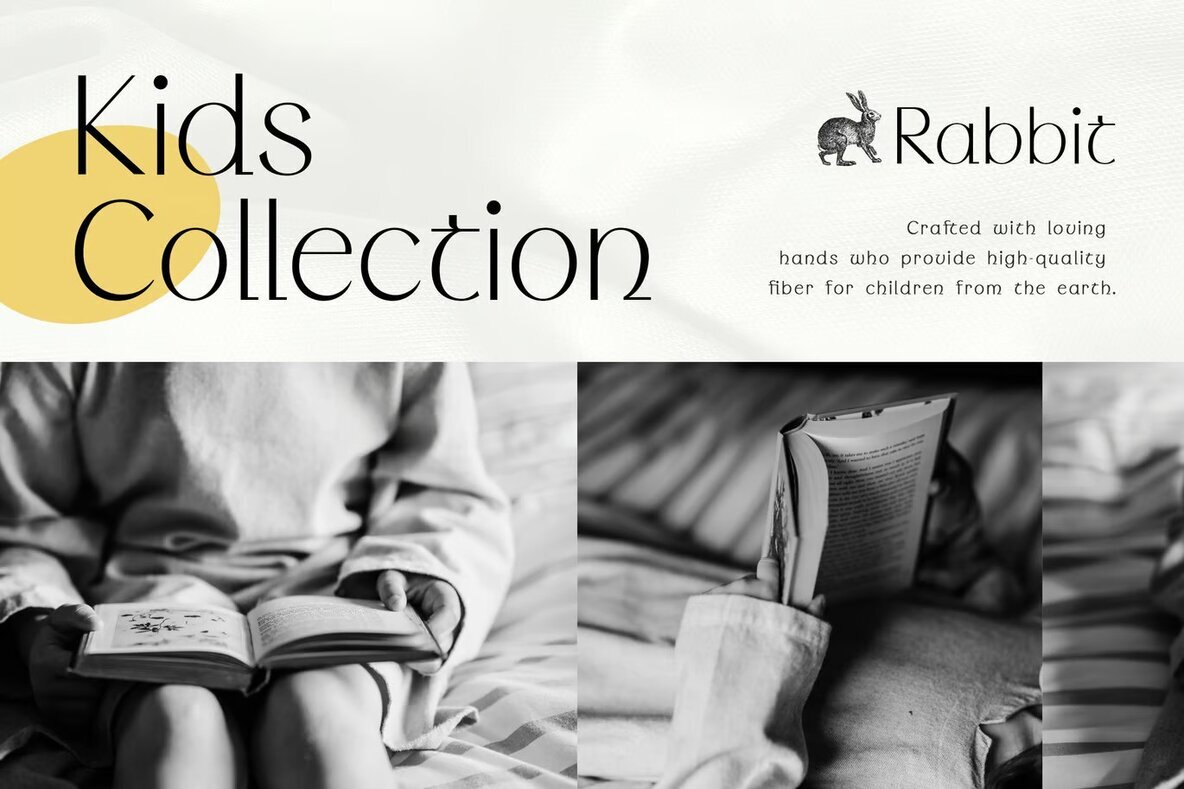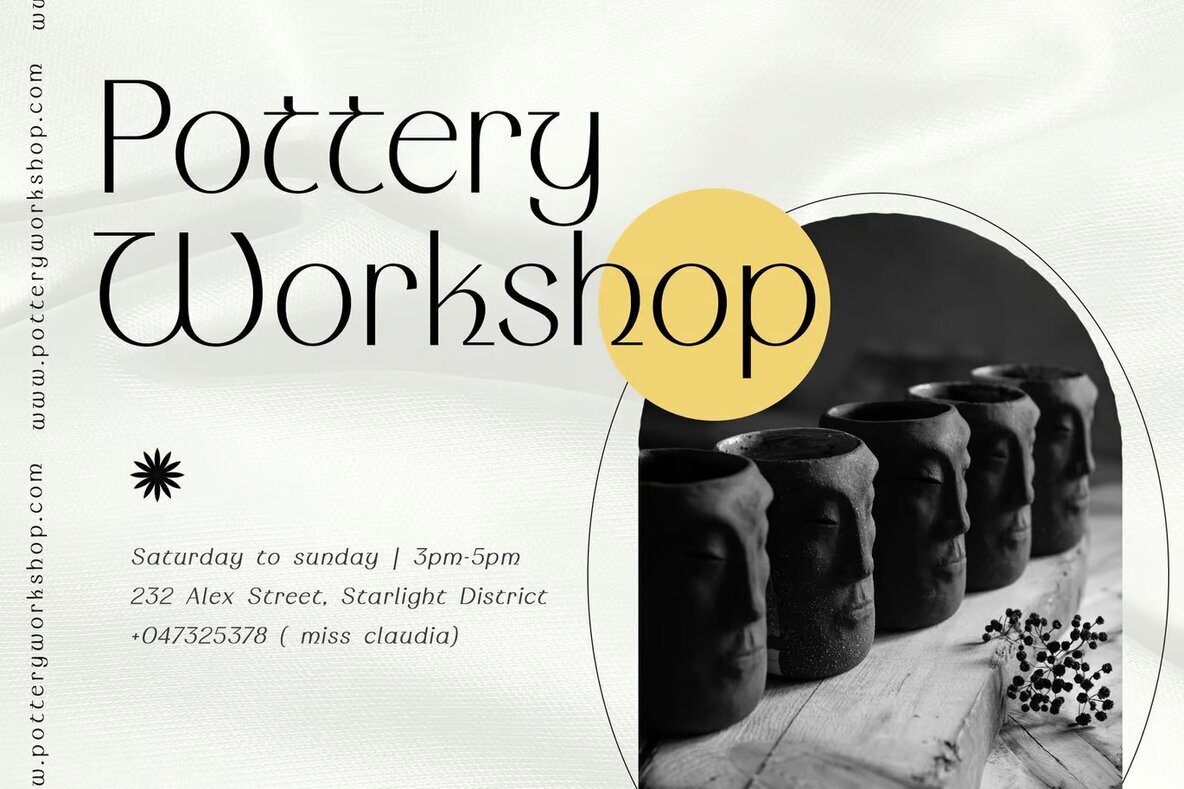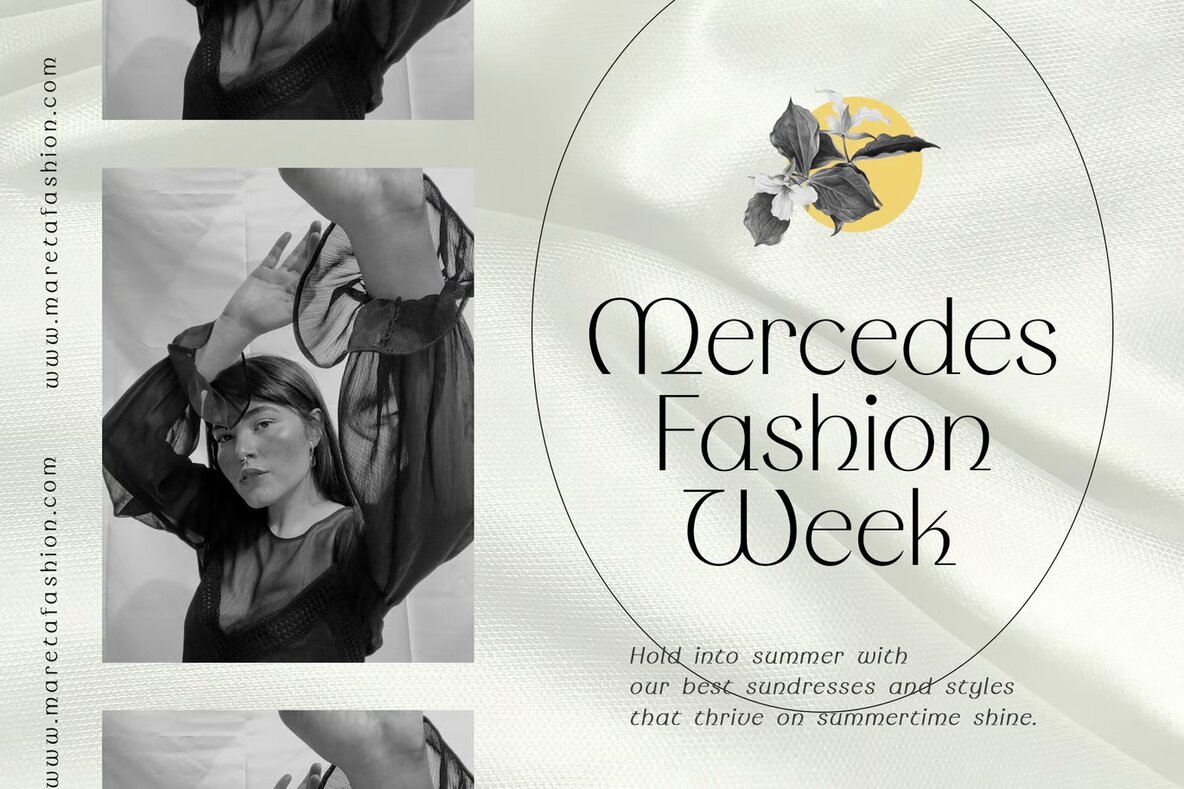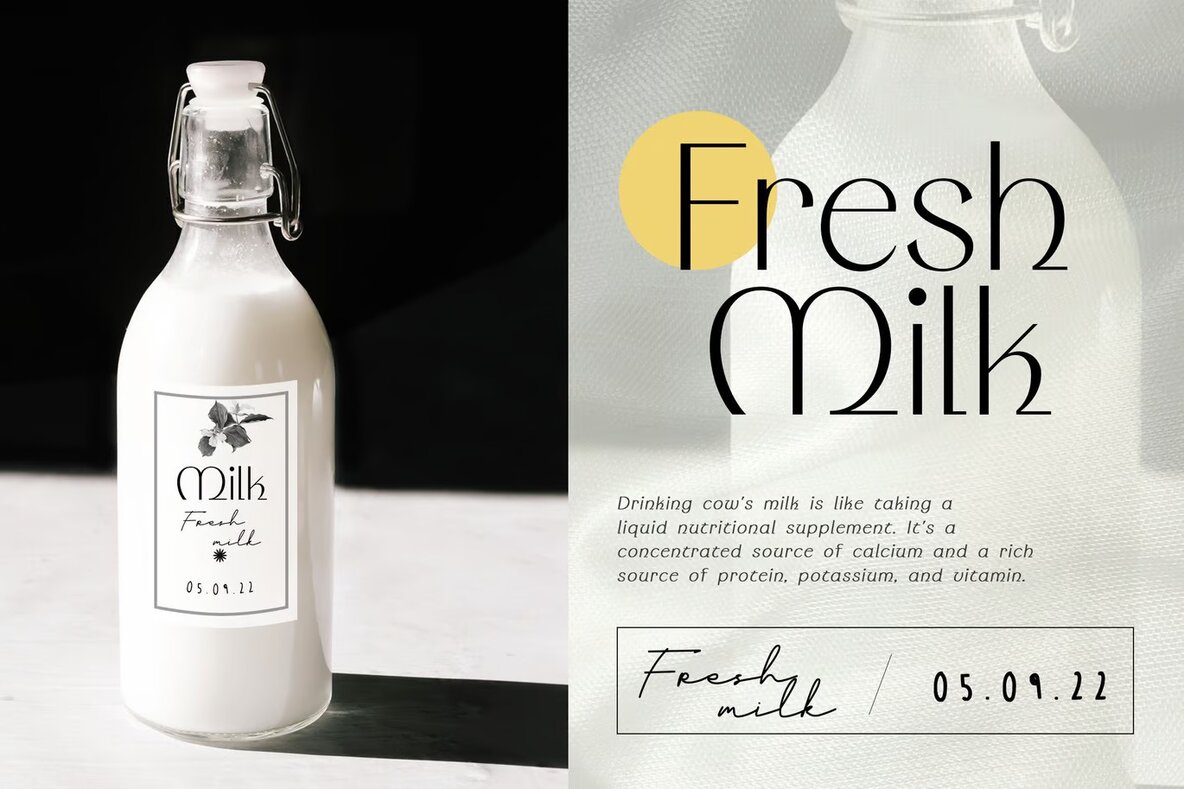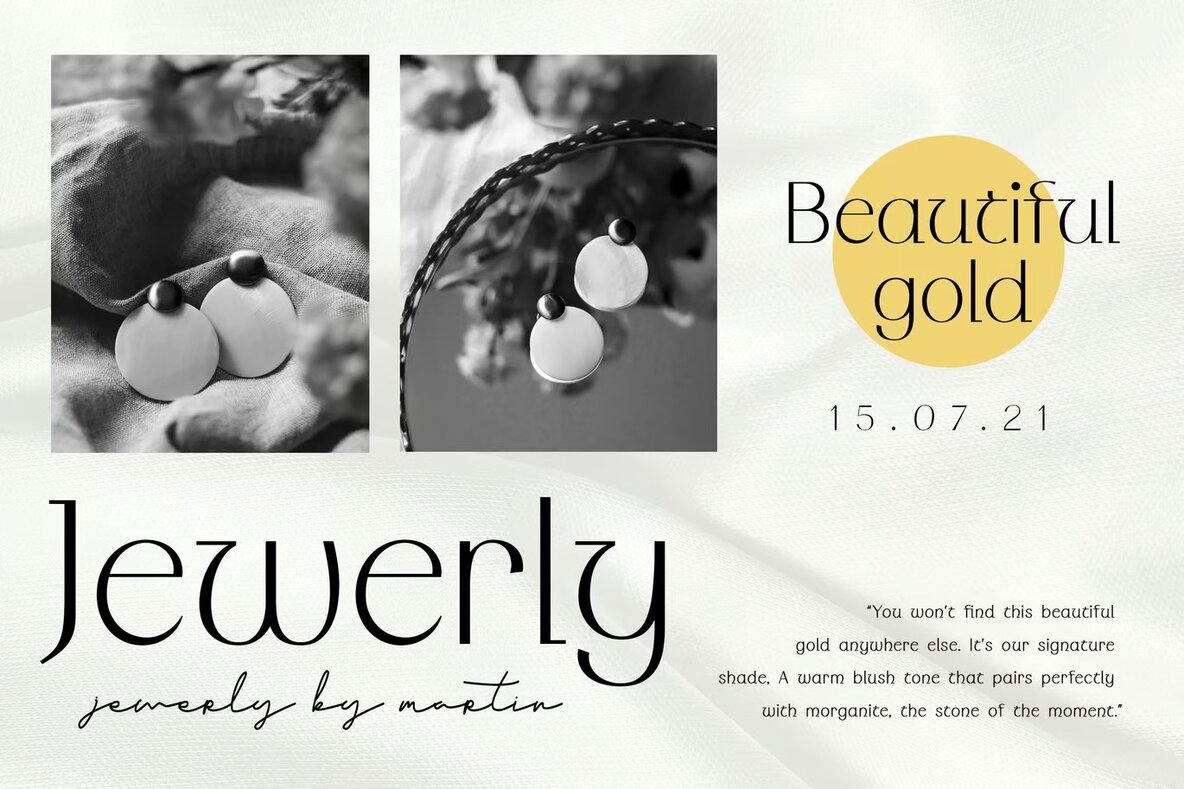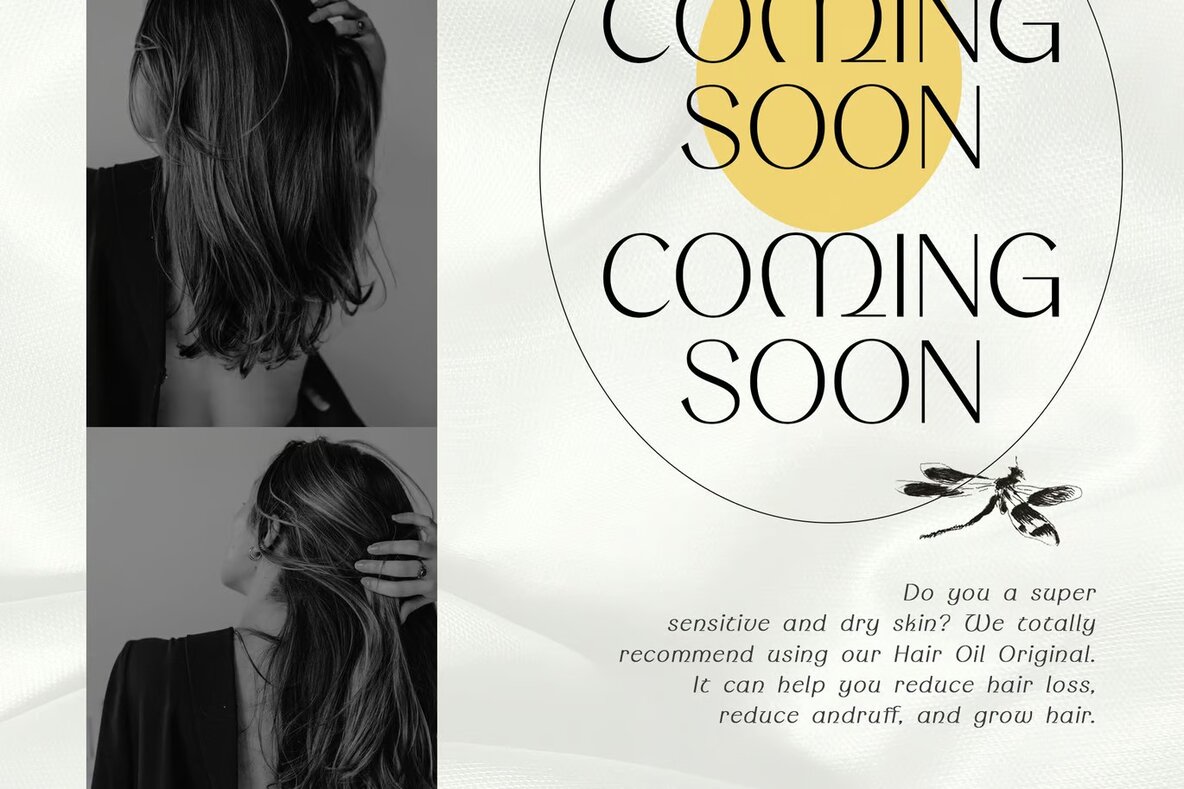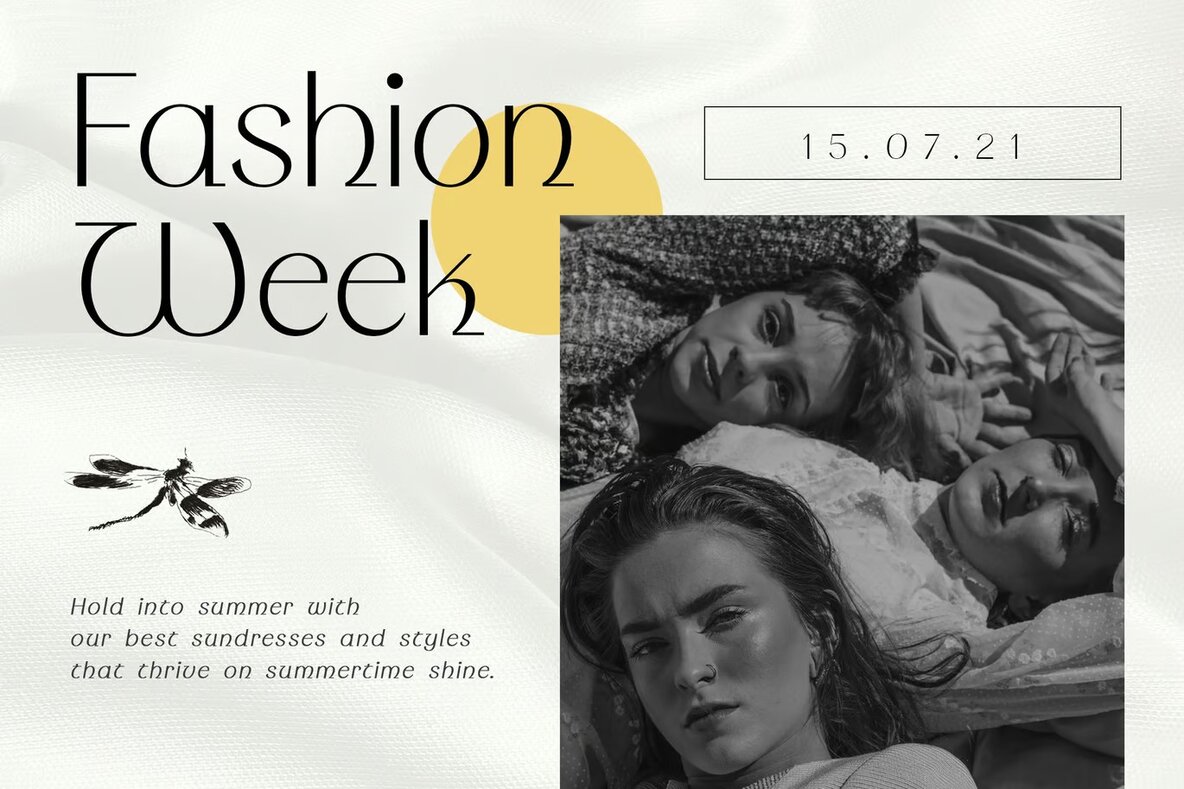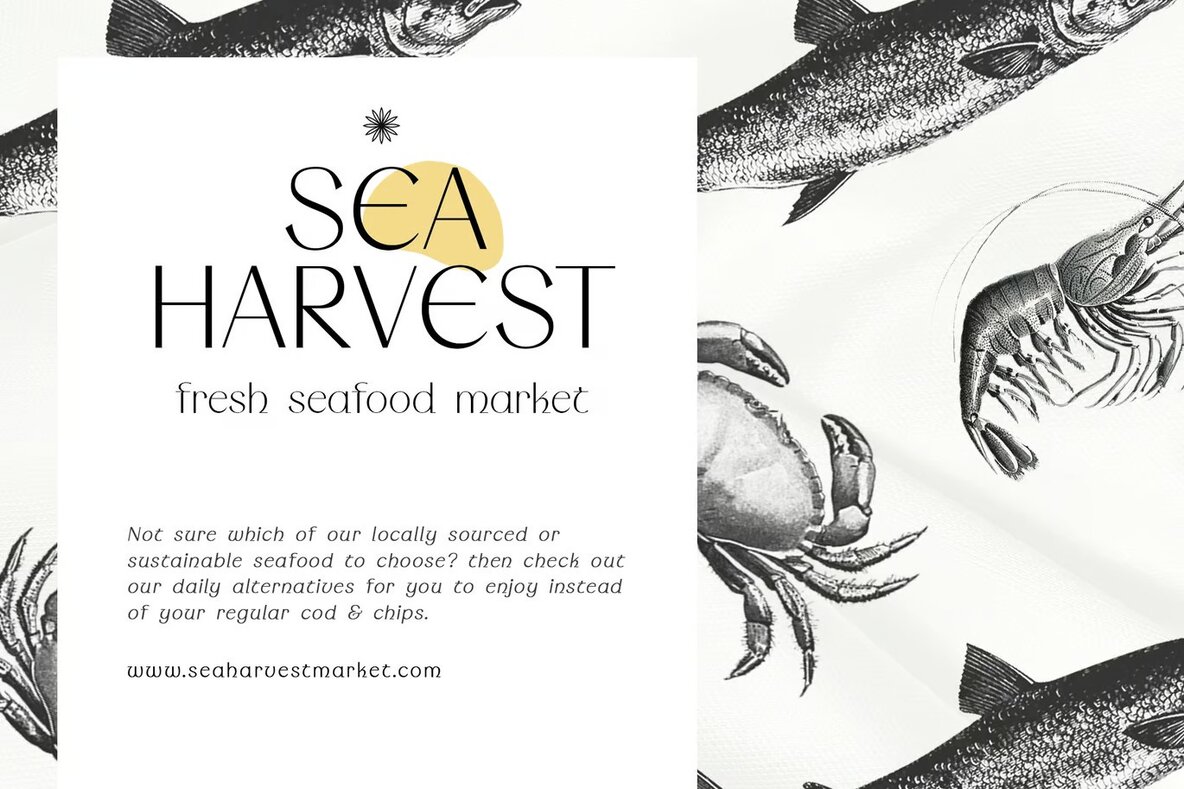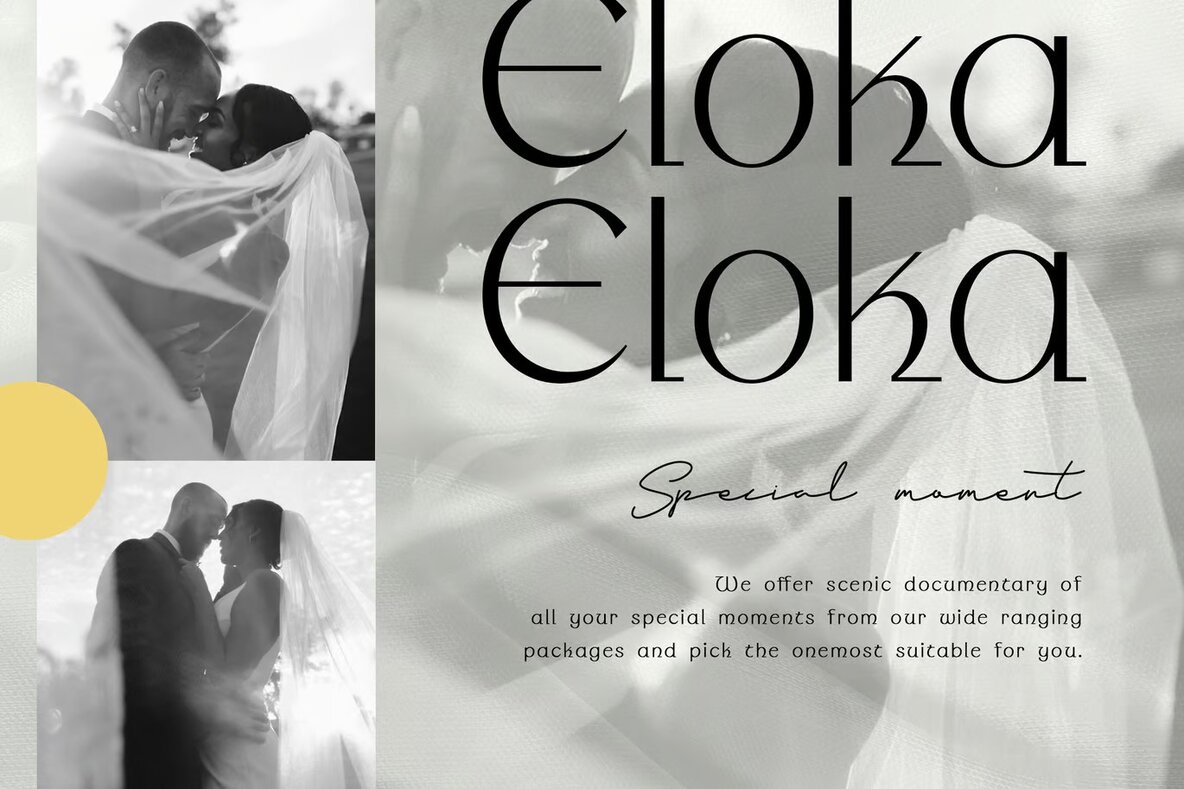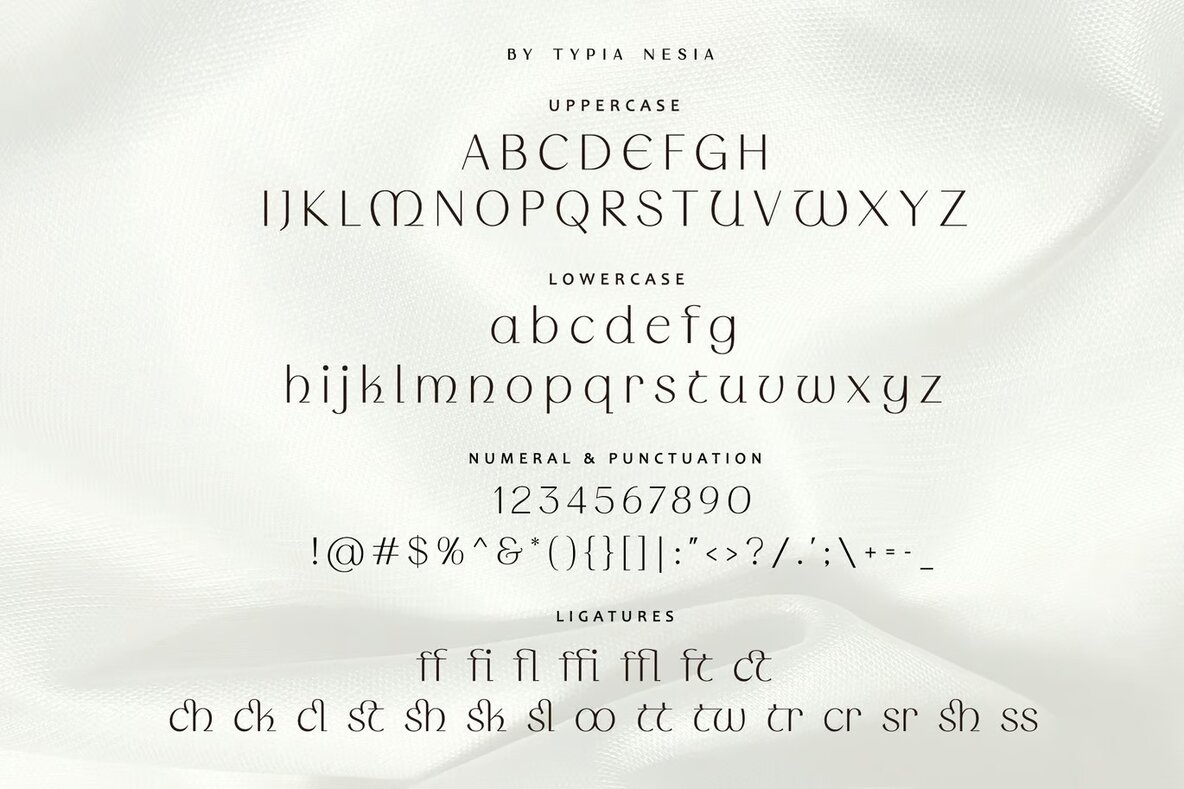
Wondermind Font
Wondermind Regular
This elegant sans-serif font offers a clean and modern look, making it ideal for a variety of design projects including web design, corporate branding, and advertising. Its minimalist and professional style ensures readability and versatility, making it suitable for both headlines and body text in print and digital contexts. Perfect for designers looking for a sleek, contemporary typeface for their projects.